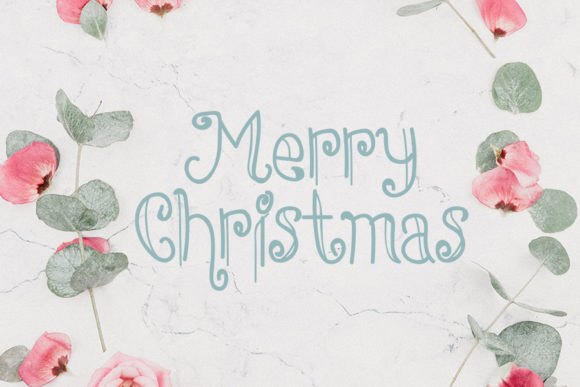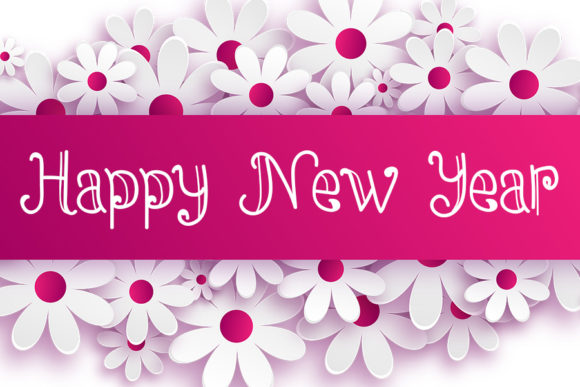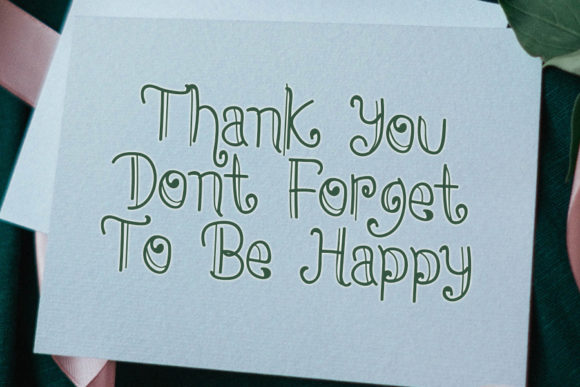
Dream House Santa Font: The Perfect Addition to Your Design Projects
Are you a designer or crafter looking for a font that can add a touch of joy and romance to your projects? Look no further than the Dream House Santa Font. This sweet, delicate, and stylish handwritten font is perfect for a variety of design ideas and is sure to make your projects stand out.
What is Dream House Santa Font?
Dream House Santa Font is a beautiful, handwritten font that is perfect for adding a personal touch to your designs. Its delicate and stylish appearance makes it ideal for a wide range of projects, from wedding invitations and greeting cards to branding and packaging.
Key Features of Dream House Santa Font
- Sweet and delicate appearance: The Dream House Santa Font has a gentle and elegant appearance that is sure to add a touch of sophistication to your designs.
- Handwritten style: The font’s handwritten style gives it a personal and unique touch that is perfect for adding a human element to your designs.
- Versatile: The Dream House Santa Font is versatile and can be used for a wide range of design ideas, from romantic and whimsical to modern and trendy.
- Easy to read: Despite its delicate appearance, the font is easy to read and can be used for both headings and body text.
How to Use Dream House Santa Font in Your Design Projects
The Dream House Santa Font is perfect for a wide range of design projects, including:
- Wedding invitations and stationery: The font’s romantic and elegant appearance makes it perfect for wedding invitations, save the dates, and other wedding stationery.
- Greeting cards and gift tags: The font’s sweet and delicate appearance makes it perfect for greeting cards, gift tags, and other paper crafts.
- Branding and packaging: The font’s unique and stylish appearance makes it perfect for branding and packaging, especially for businesses that want to add a personal touch to their products.
- Social media graphics: The font’s versatility makes it perfect for social media graphics, including Facebook posts, Instagram stories, and Pinterest pins.
Tips for Getting the Most Out of Dream House Santa Font
Here are a few tips for getting the most out of the Dream House Santa Font:
- Use it with contrasting colors: The font’s delicate appearance can make it difficult to read on certain backgrounds. Use it with contrasting colors to make it stand out.
- Experiment with different sizes: The font’s versatility makes it perfect for use at different sizes. Experiment with different sizes to find the one that works best for your project.
- Pair it with other fonts: The Dream House Santa Font pairs well with other fonts, especially sans-serif fonts. Experiment with different pairings to find the one that works best for your project.
The Dream House Santa Font is a beautiful and versatile font that is perfect for adding a touch of joy and romance to your design projects. Its delicate and stylish appearance makes it ideal for a wide range of projects, from wedding invitations and greeting cards to branding and packaging. With its ease of use and versatility, it’s a great addition to any designer’s or crafter’s toolkit.